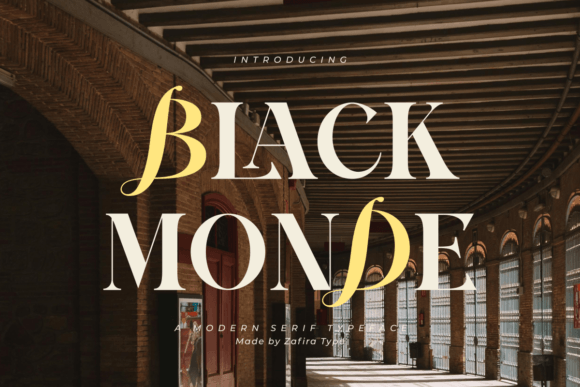
I still remember the countless hours I spent searching for the ideal font for a luxury branding project. My client wanted something that exuded elegance, sophistication, and a touch of modernity. I scoured the internet, tried out numerous fonts, but nothing seemed quite right. That was until I stumbled upon Black Monde, an extraordinary serif font that effortlessly embodies a blend of grandeur and grace.
Introducing Black Monde
Black Monde is a game-changer for designers striving to infuse an aura of refinement into luxury branding, top-tier editorial creation, or high-end packaging designs. Its distinctive and polished letter shapes make it indispensable for projects that demand a high level of sophistication. The delicate serif detailing imbues a timeless charm, while the robust weight and proportions of the characters lend a trendy edge, rendering Black Monde adaptable across a spectrum of design domains.
- ✨ Elegant and refined letter shapes
- ✅ Robust weight and proportions for a trendy edge
- 💯 Timeless charm with delicate serif detailing
- 🎨 Adaptable across various design domains
While Black Monde is an exceptional font, there are a few things to keep in mind:
- ⚠️ May not be suitable for body text due to its bold weight
- 🤔 Limited availability of condensed or italic styles
- Experiment with OpenType features, such as ligatures and stylistic alternates, to add an extra layer of sophistication to your design.
The story behind Black Monde is one of passion and dedication. The font’s creator, a talented type designer, was inspired by the classic serif fonts of the past and sought to create a modern take on these timeless designs. With Black Monde, the designer aimed to craft a font that would be both elegant and refined, yet bold and attention-grabbing.
| Font Name | Black Monde Font |
| Author | zafira.type |
| What is Black Monde? | Black Monde is a serif font that combines grandeur and grace, making it perfect for luxury branding, editorial creation, and high-end packaging designs. |
| Is Black Monde suitable for body text? | No, Black Monde is a bold font and may not be suitable for body text. It’s best used for headlines, logos, and other design elements where a strong visual impact is desired. |
| Is Black Monde available in different weights and styles? | Currently, Black Monde is available in a single weight, but it may be available in other weights and styles in the future. |